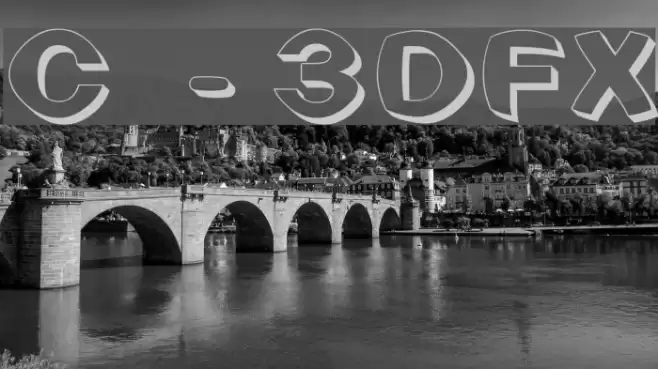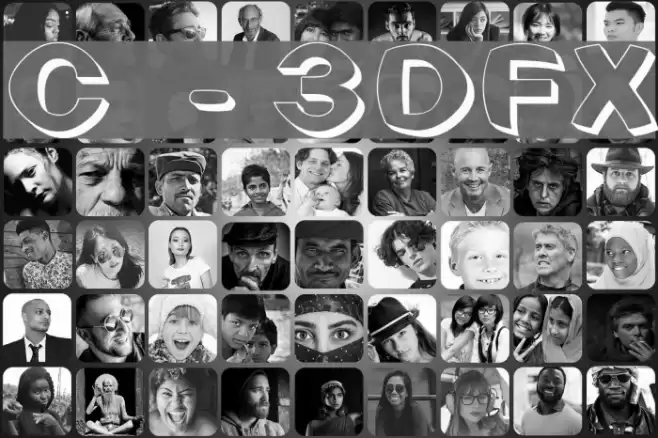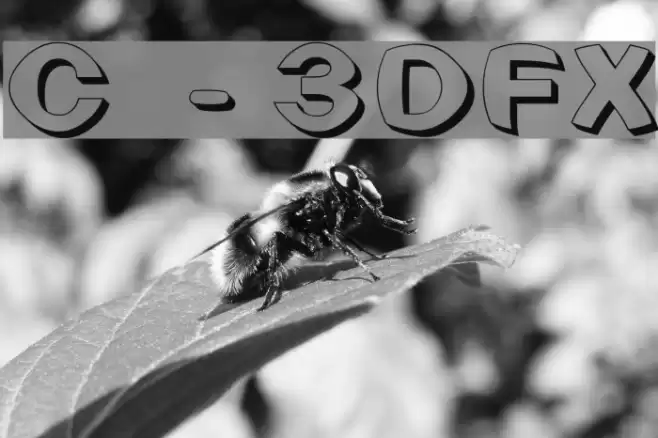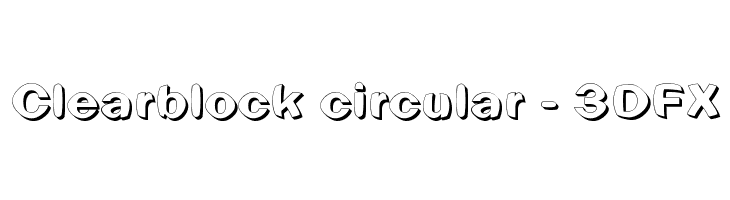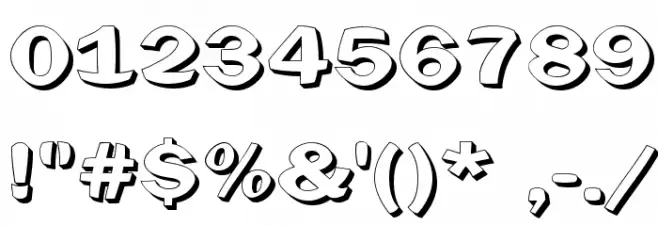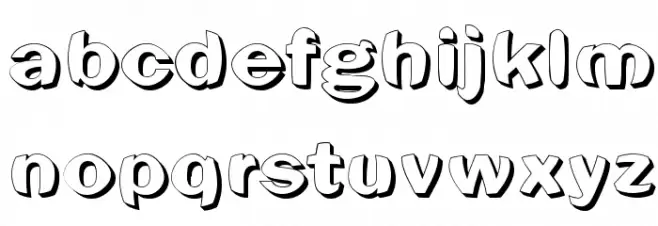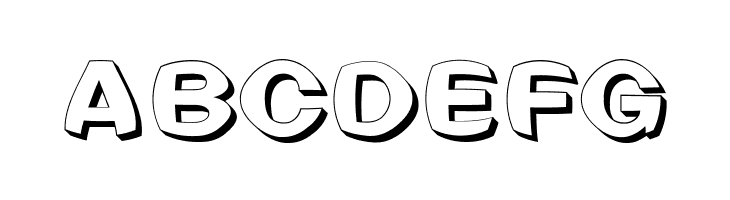
Clearblock circular - 3DFX Font
Clearblock circular - 3DFX Description
This font features a bold, three-dimensional effect that gives each character a distinct, shadowed appearance. The letters are rounded and have a playful, cartoon-like quality, making them stand out with a strong visual impact. The shadowing effect adds depth and dimension, creating a sense of movement and energy. The uppercase and lowercase letters maintain a consistent style, with smooth curves and a uniform thickness. The numbers and special characters are designed to match the playful and bold aesthetic of the alphabet, ensuring a cohesive look across all text elements.
A bold, 3D-effect font with rounded, playful characters and shadowed depth from Outline fonts.
- Proposed Projects: Ideal for children's book covers, playful branding, posters, and eye-catching headlines.